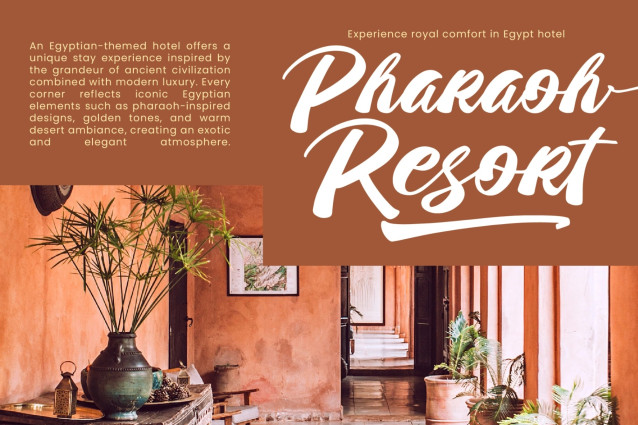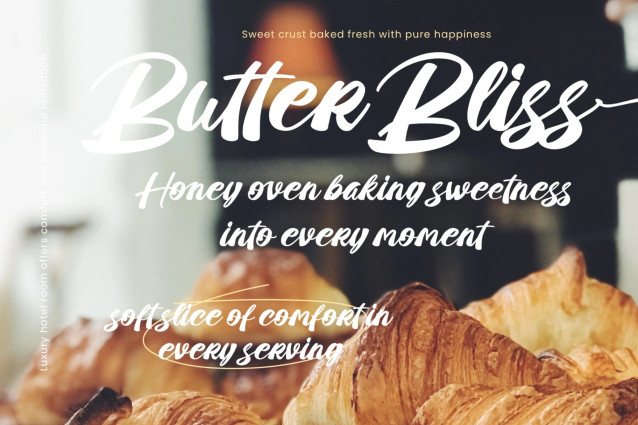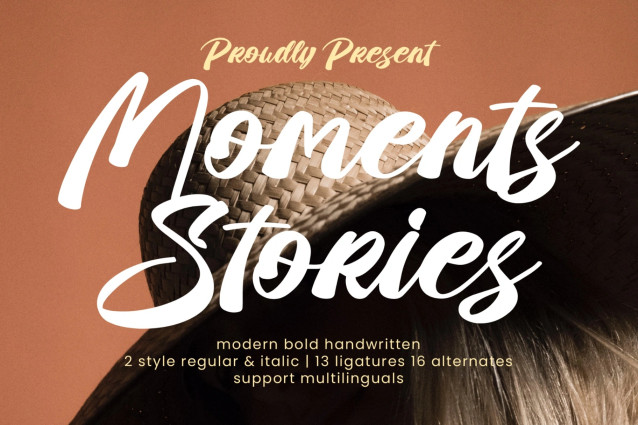
Moments Stories Font
Moments Stories Font is a modern bold handwritten font that combines confident brush-inspired strokes with smooth flowing curves. Designed to create a strong visual impact, this typeface brings warmth, authenticity, and personality to every creative project while maintaining excellent readability.
Featuring regular and italic styles, stylish ligatures, and beautifully crafted alternates, Moments Stories offers flexibility for designers seeking a handwritten font with a polished and contemporary feel. Its bold character makes it ideal for standout branding, eye-catching headlines, and expressive visual storytelling. The natural handwritten flow and modern design approach allow Moments Stories to work perfectly across both digital and print applications, making it a versatile choice for creative professionals.